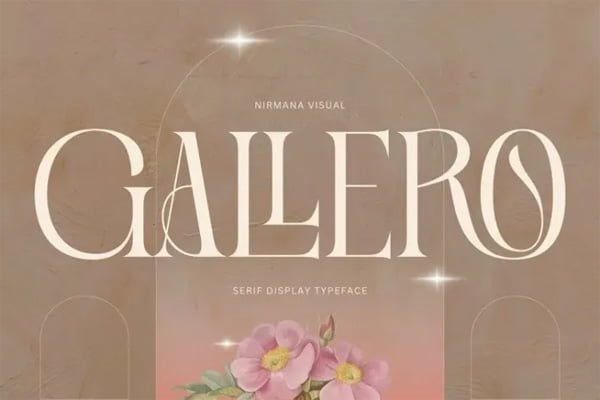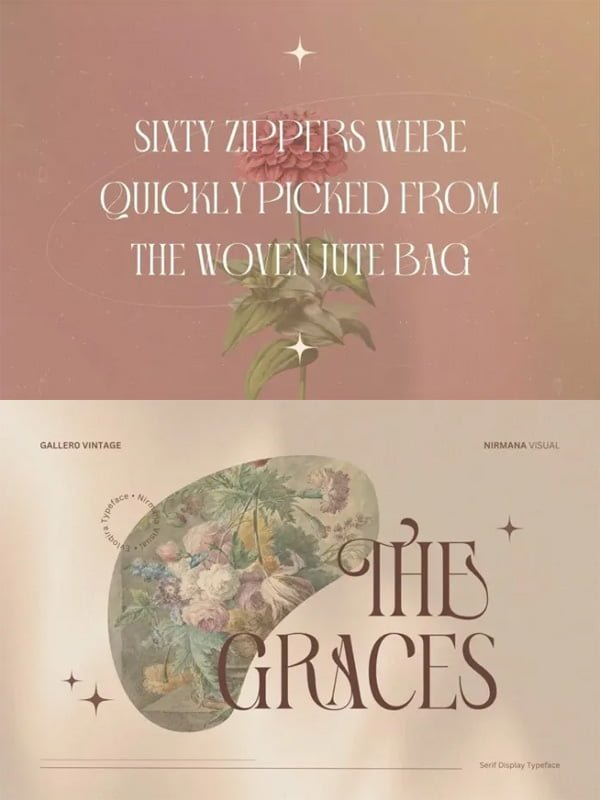
Here in this post, you can Free Download Gallero Font compress files through the below link. Gallero Serif Fonts a classic serif with more hand-illustrated alternatives, and preserved textures, for a unique, yet modern vintage feel. Retro Volt offers beautiful typographic harmony for a diversity of design projects, including logos & branding, social media posts, advertisements & product designs. You Can Also Download Rollcore’s Script Font.
Gallero Font